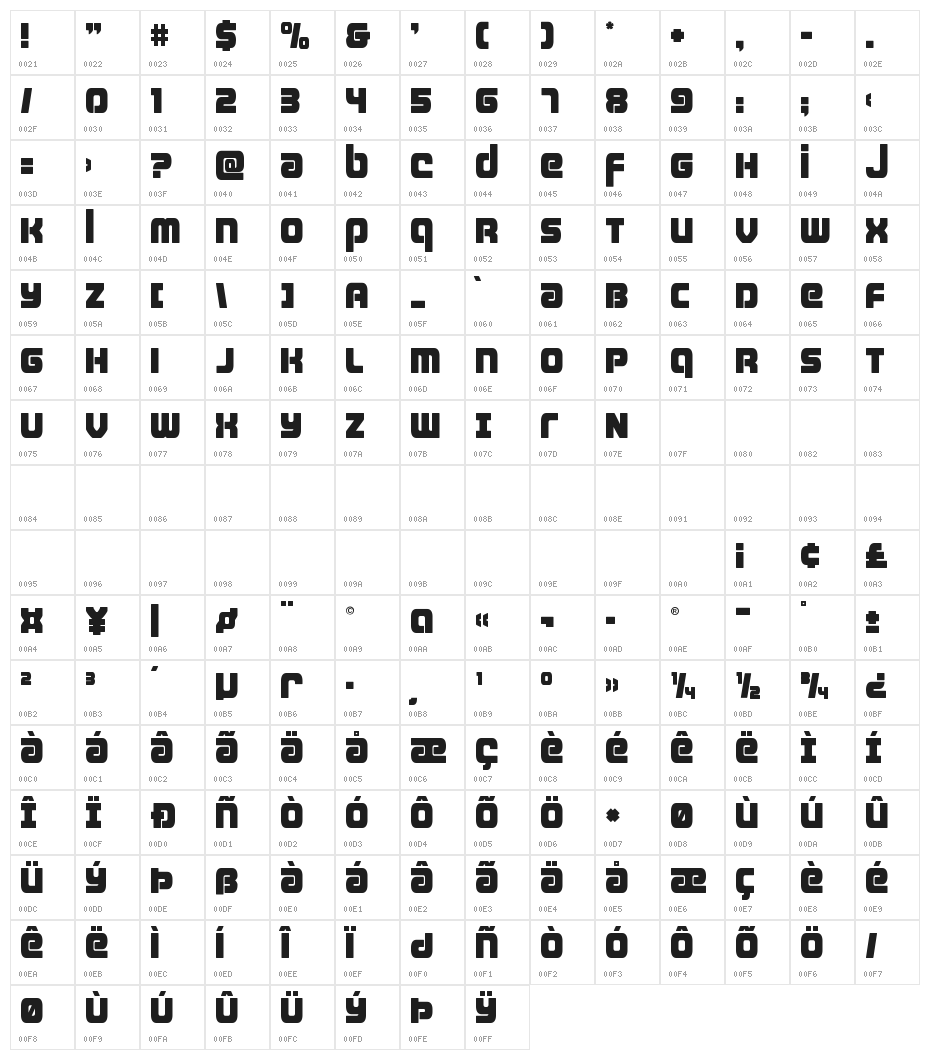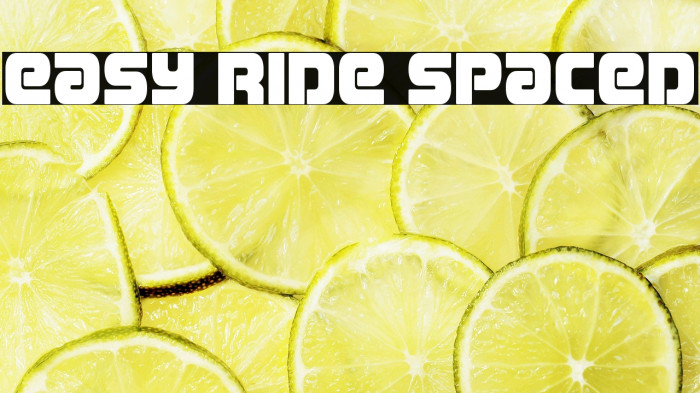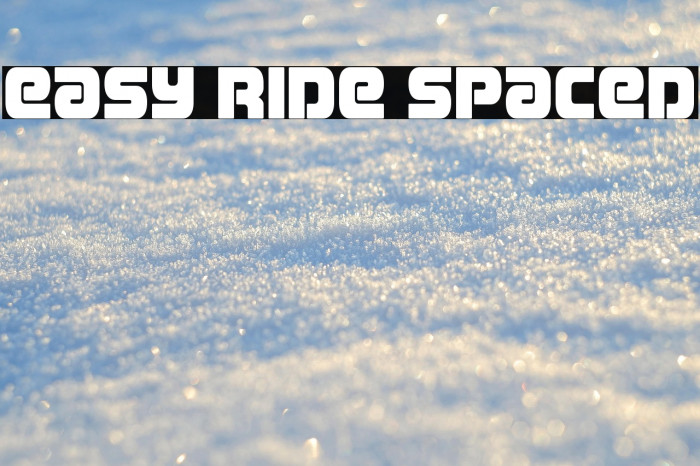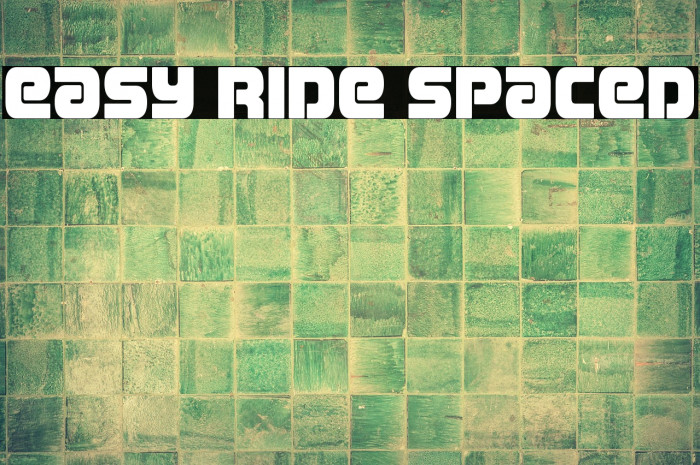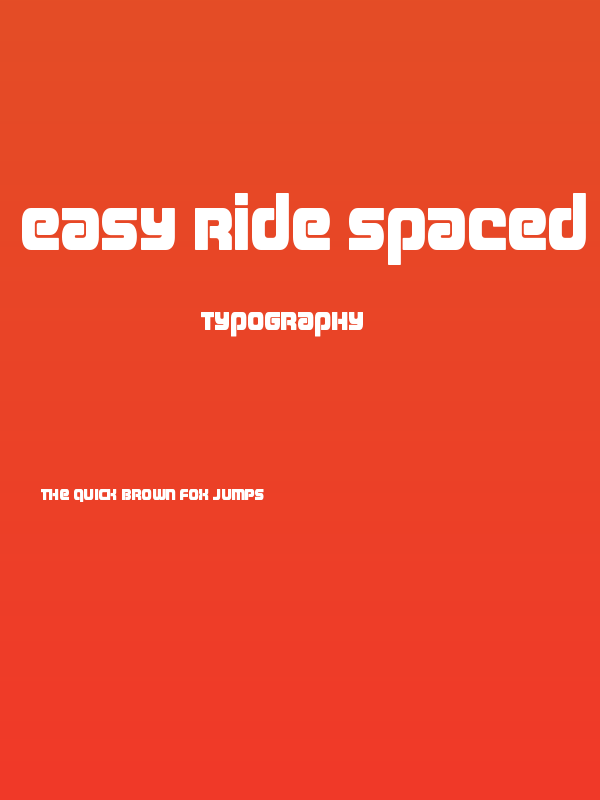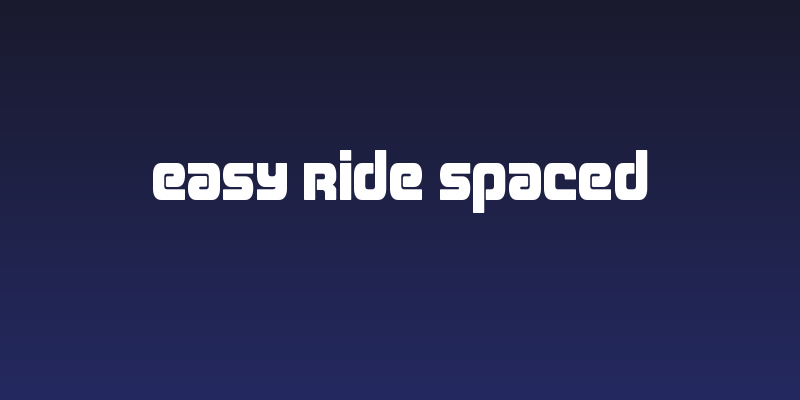
Easy Ride Spaced Font
Easy Ride Spaced Description
This font features a bold and geometric design with a strong presence. The characters are constructed with thick, uniform strokes, creating a sense of solidity and modernity. The rounded edges soften the overall appearance, adding a touch of friendliness to the otherwise robust style. The uppercase and lowercase letters maintain consistent proportions, ensuring readability and balance. The numerals and special characters are designed to match the boldness of the alphabet, making them stand out effectively. This font is ideal for projects that require a contemporary and impactful look.
| Proposed Projects | Ideal for branding, posters, headlines, and digital media where a strong, modern look is desired. |